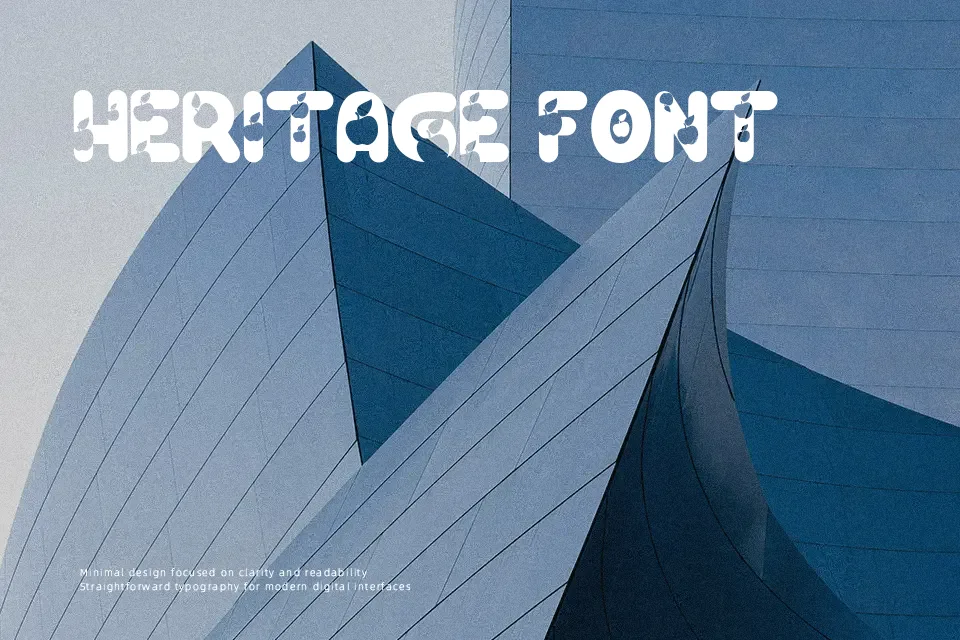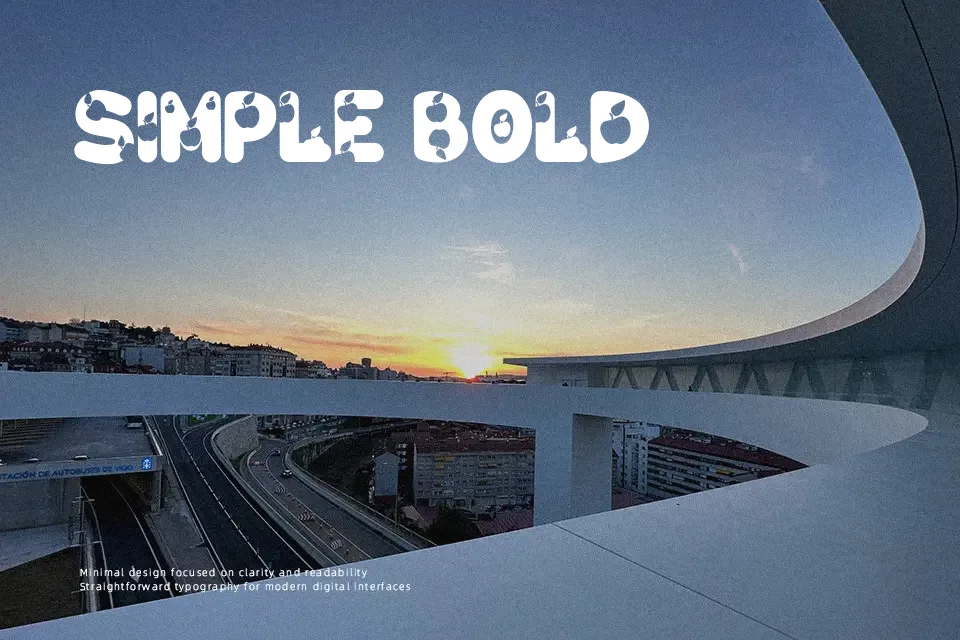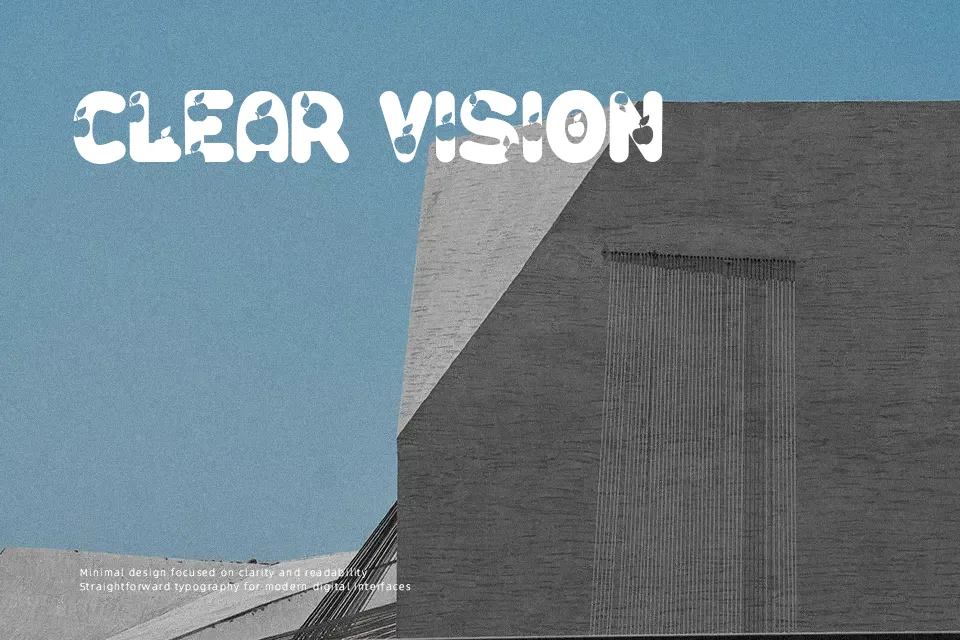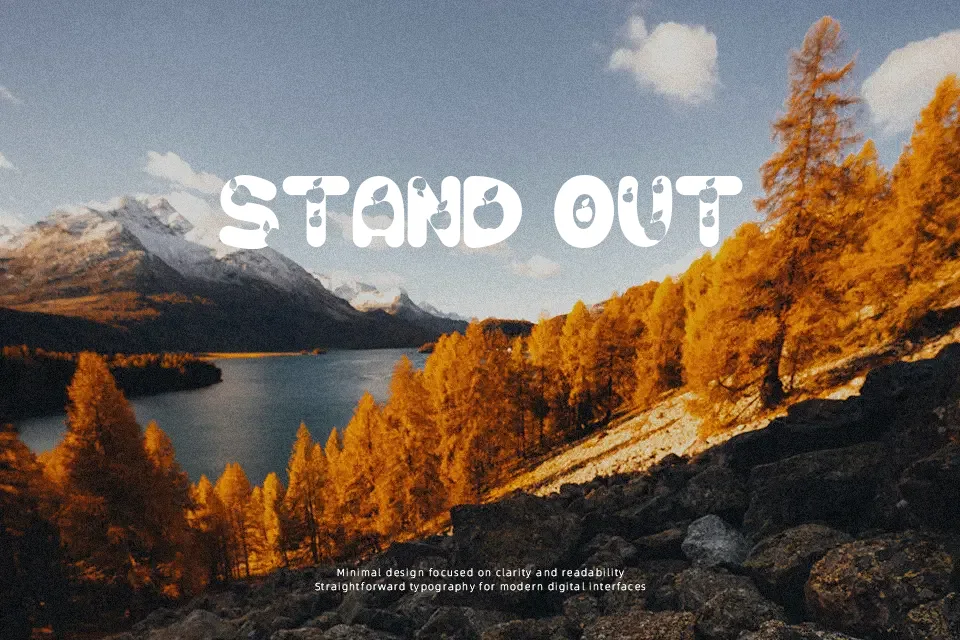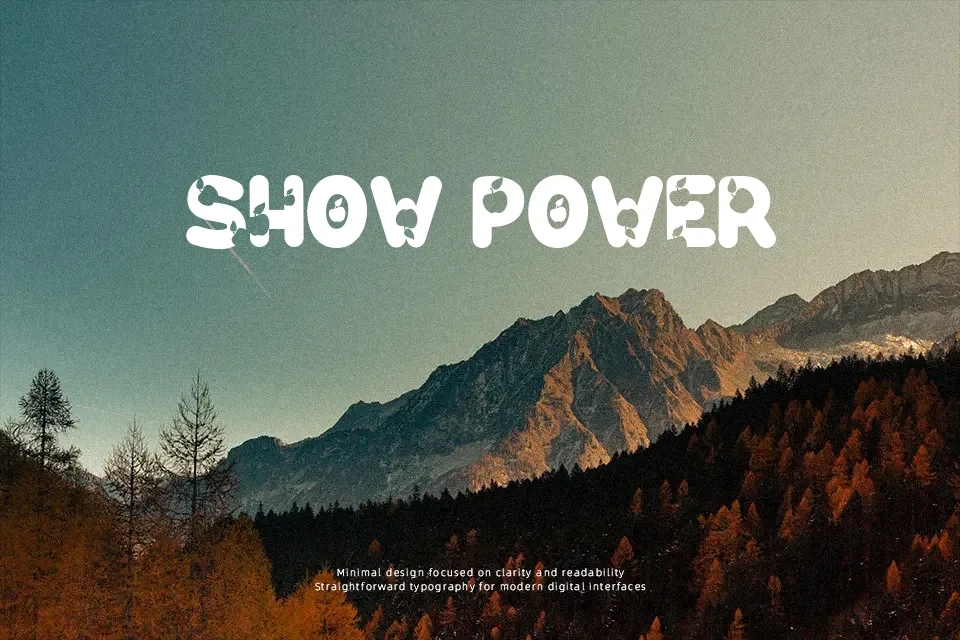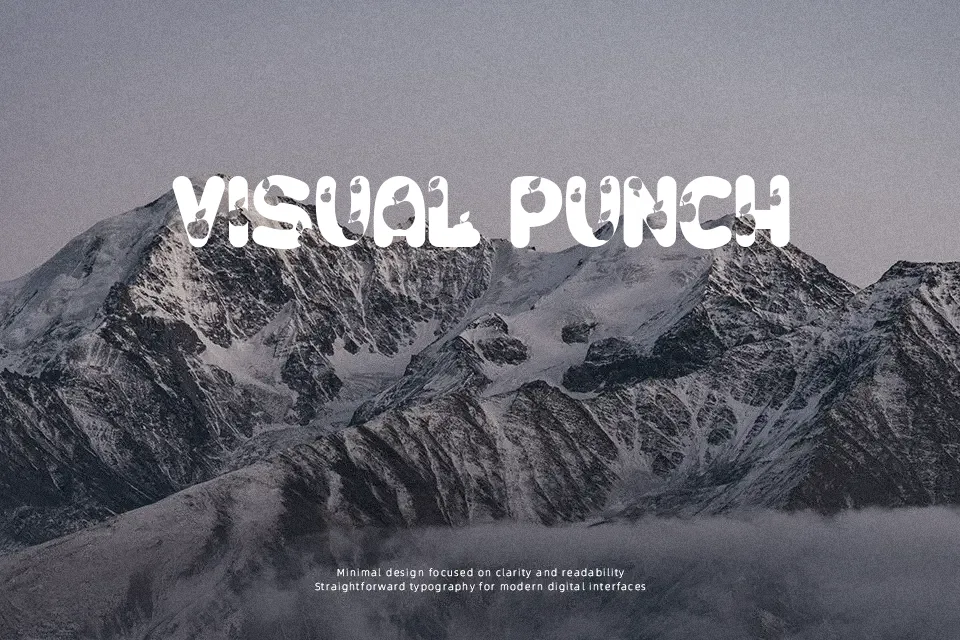
An Apple Font
Designed by Rusd
Each character in An Apple is built from thick, rounded strokes with miniature apple shapes embedded as negative space — giving the font its unmistakable identity. The letterforms carry a retro-playful weight, somewhere between a bold display face and an illustrated logo mark. At large sizes, the apple motifs read clearly and add charm; at smaller scales, that detail collapses and the intent gets lost entirely — making this strictly a headline-only font. Works well for food packaging headers, children’s education materials, or fruity brand identities where the theme needs to be obvious. Designers expecting versatility across body text or neutral branding will find it limiting.
Best For:- Children’s book or educational material covers
– Fruit brand or healthy food product packaging headers
– Retro-inspired event poster headlines
– Food stall or market signage
Not Ideal For:- Body text or any paragraph-level copy
– Corporate or professional branding environments
– Small-size usage where apple detail becomes illegible
– Multilingual or symbol-heavy layouts beyond basic Latin
Perfect for kids, logo, and packaging, with a cute and decorative style.